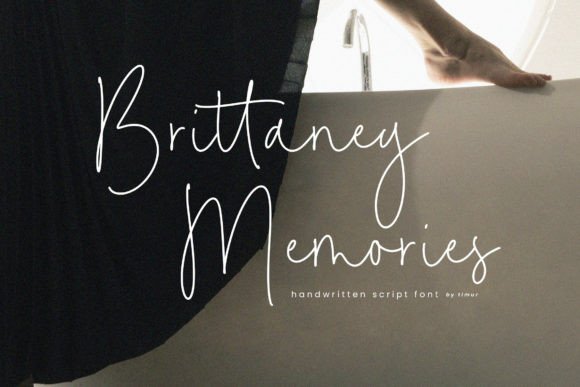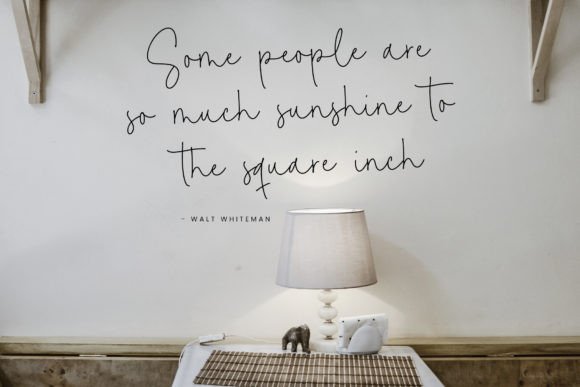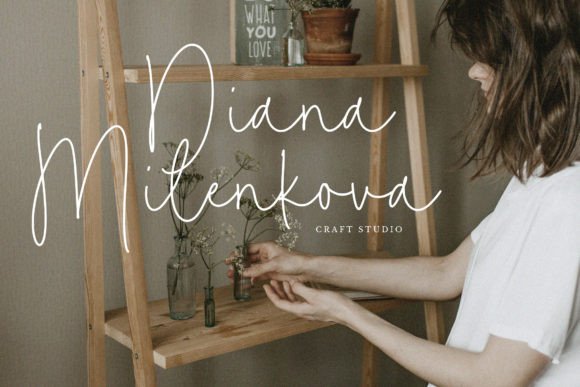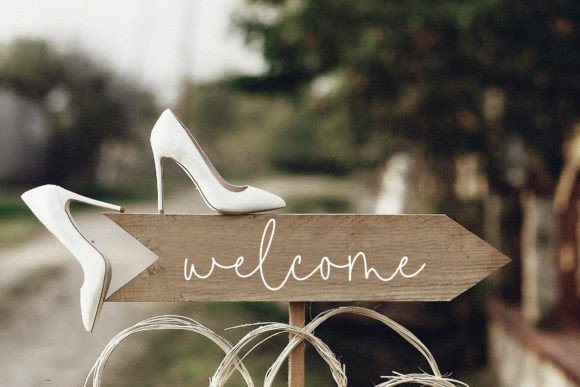
Brittaney Memories Font: Chic Handwritten Script for Elegant Branding
About the Brittaney Memories Font
Step up your design game with Brittaney Memories Font, a font that exudes confidence and style. Brittaney Memories A Handwritten Script Font, which was created with great care and specially created for you
Brittaney Memories is perfect for product packaging, branding project, magazine, social media, weddings, or just used to express words above the background.
Brittaney Memories’ elegant, yet slightly informal style works best for headlines, short paragraphs, and branding applications where a touch of handwritten charm is desired. It’s ideal for projects emphasizing femininity, nostalgia, or handcrafted quality—think wedding invitations, boutique branding, or product packaging for beauty or lifestyle goods. Avoid using it for large blocks of body text or user interfaces where readability is paramount; its script nature can hinder legibility in smaller sizes or dense layouts.
Pairing Brittaney Memories effectively requires considering its inherent softness. A clean sans-serif like Montserrat or Lato would provide a strong, modern counterpoint, enhancing readability in supporting text. For a more classic feel, a delicate serif such as Playfair Display could create a balanced and sophisticated aesthetic. Conversely, a geometric sans-serif like Futura would offer unexpected contrast, generating a modern yet romantic combination.
The font’s core personality is best described as elegant and friendly, conveying a sense of warmth and sophistication without being overly formal. This makes it highly versatile for projects seeking a balance between refined style and approachable charm.
Brittaney Memories Font Usage Examples
Brittaney Memories Font Example